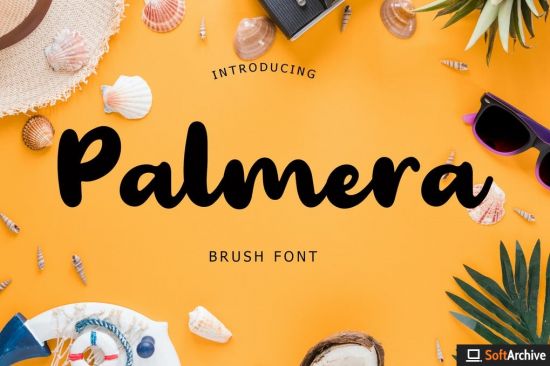
Palmera is perfect for branding projects, logo, wedding designs, social media posts, advertisements, product packaging, tshirt design, product designs, label, photography, watermark, invitation, stationery and any projects.